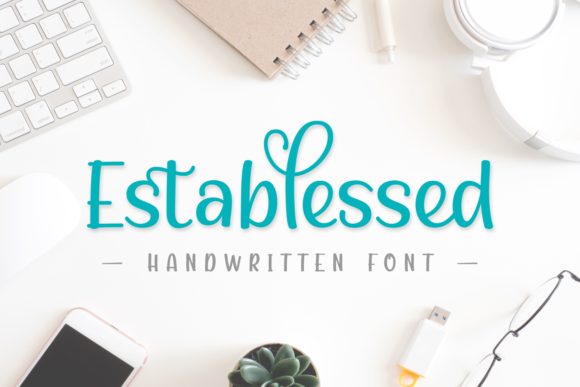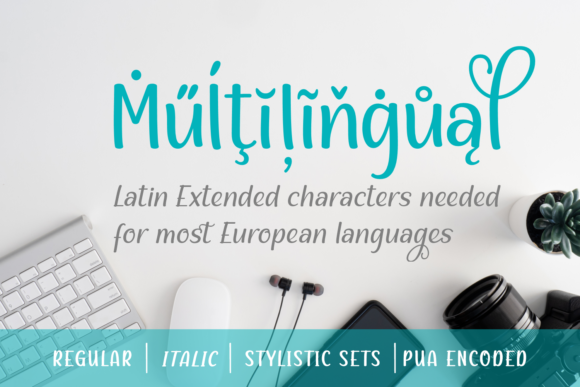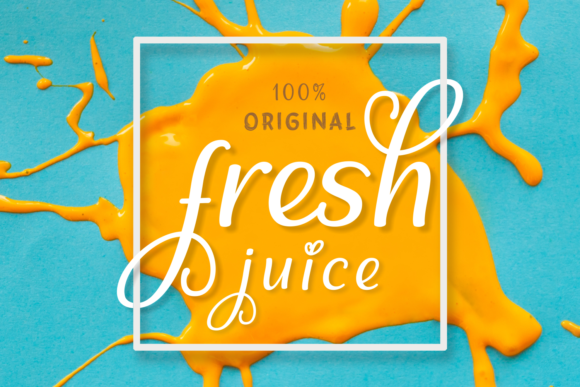
Establessed Font
About Establessed Font
Establessed is a sweet and neat lettered handwritten font. Get inspired by its delicate and joyful feel, and use it to create gorgeous wedding invitations, beautiful stationary art, eye-catching social media posts, and much more!